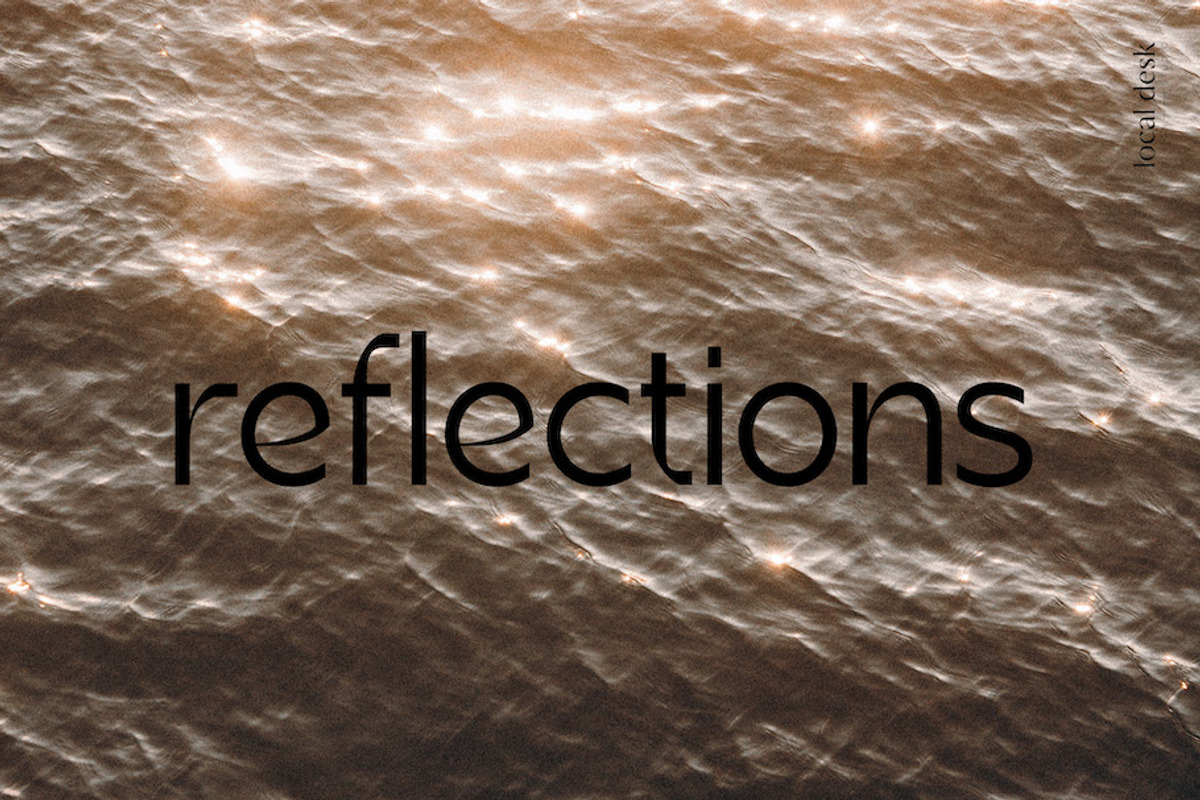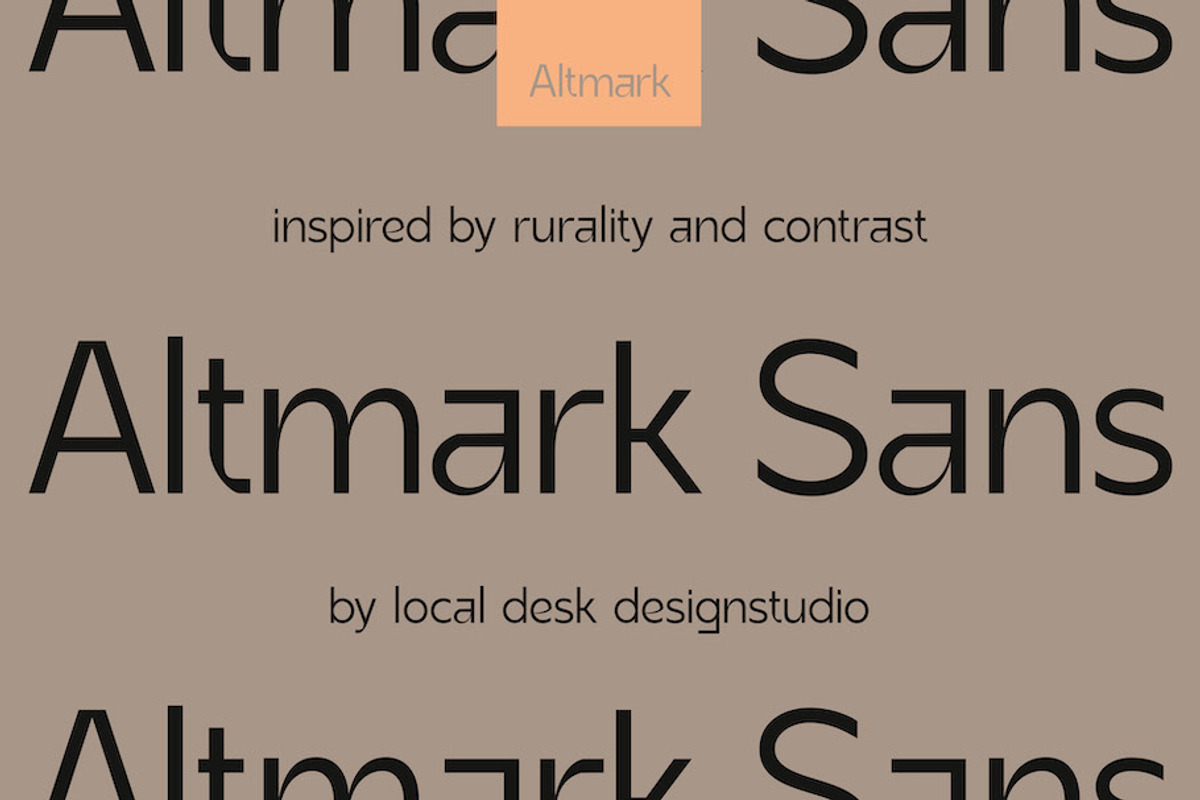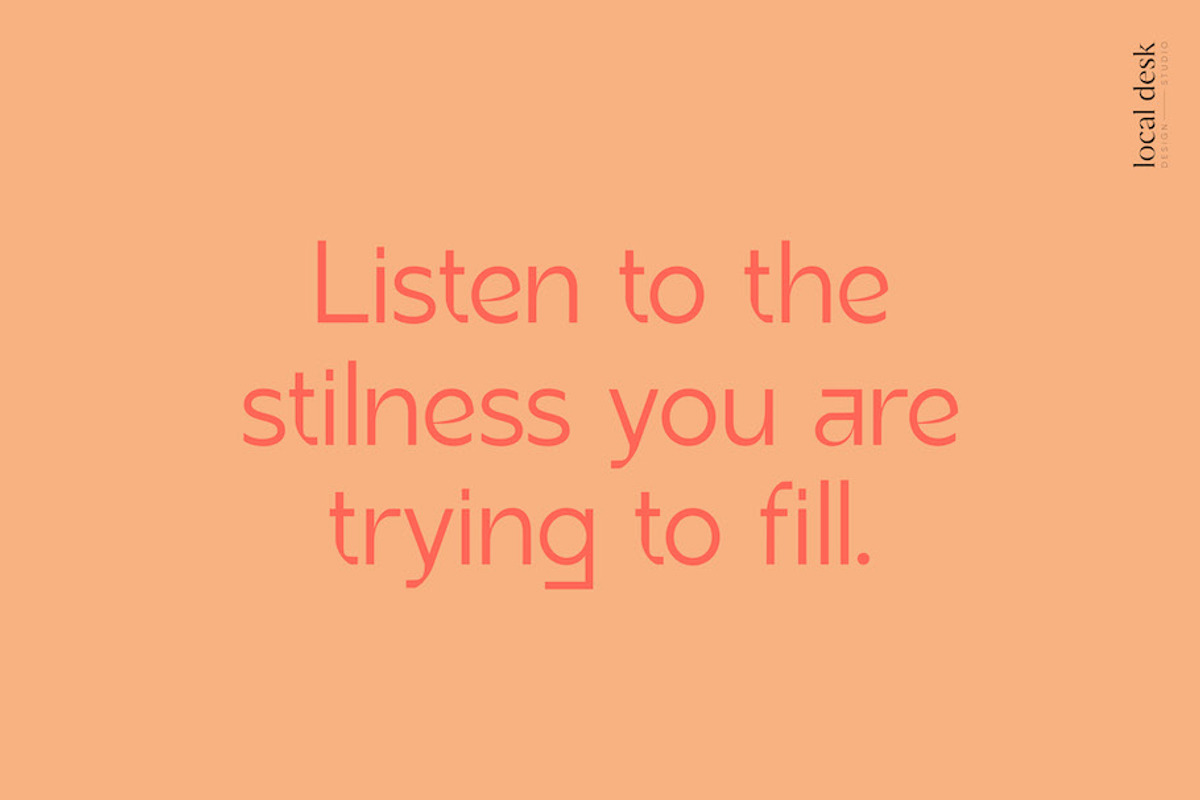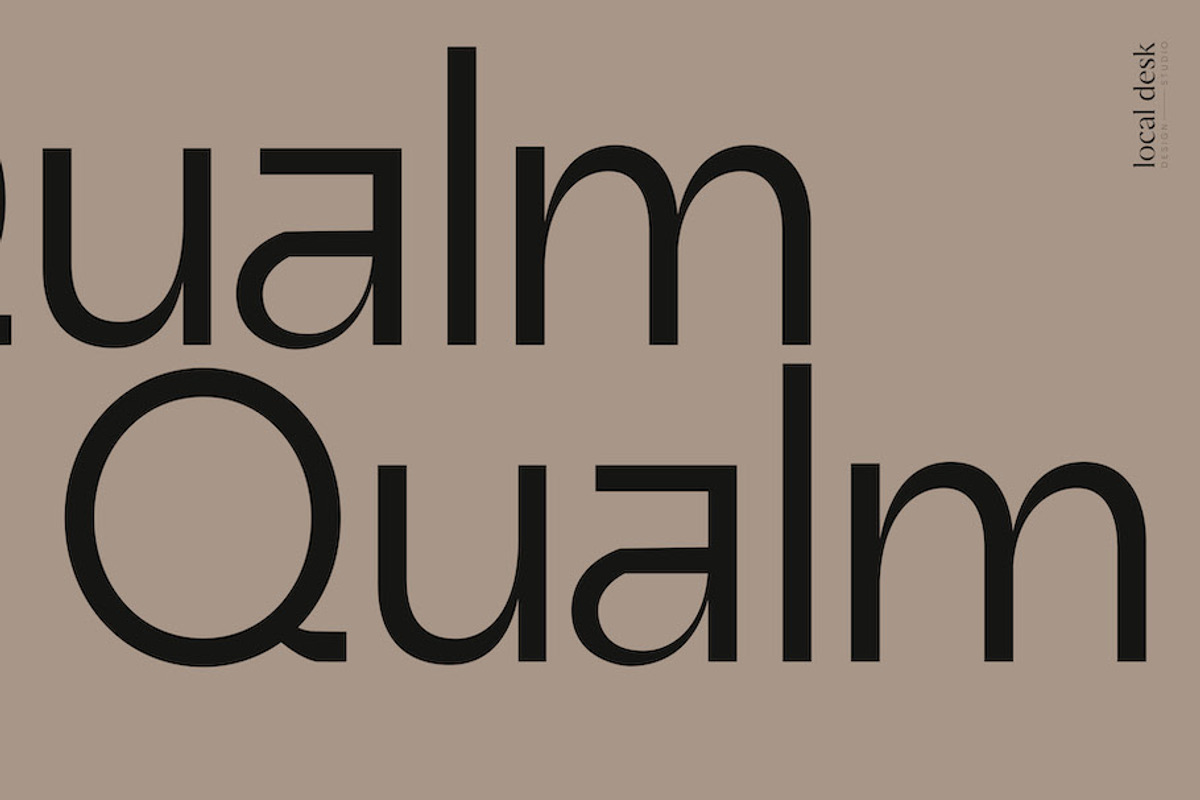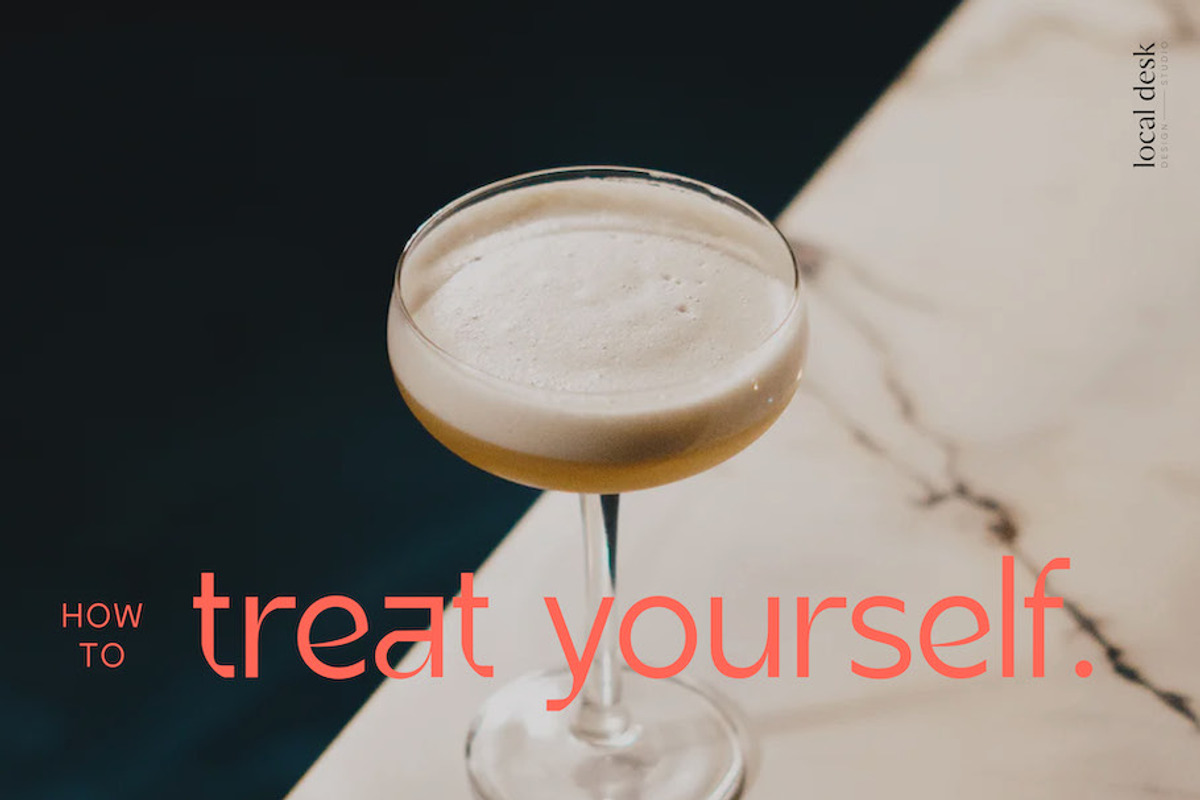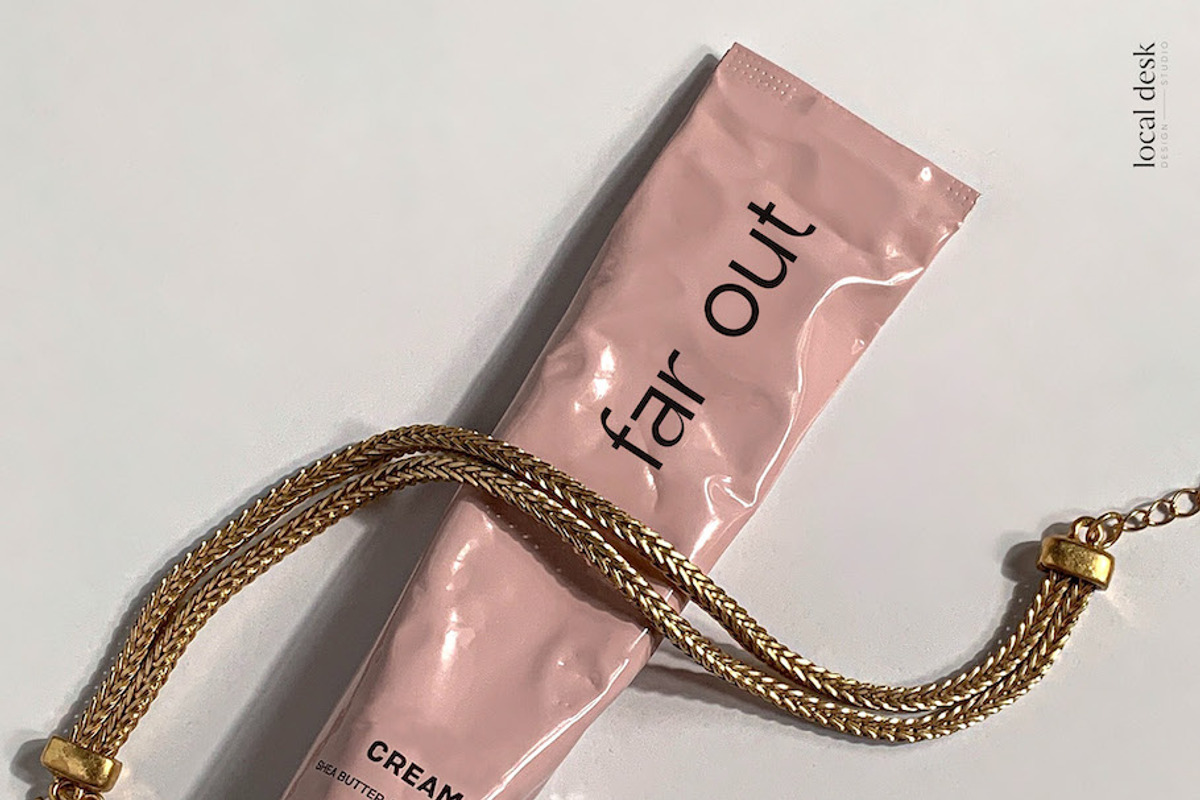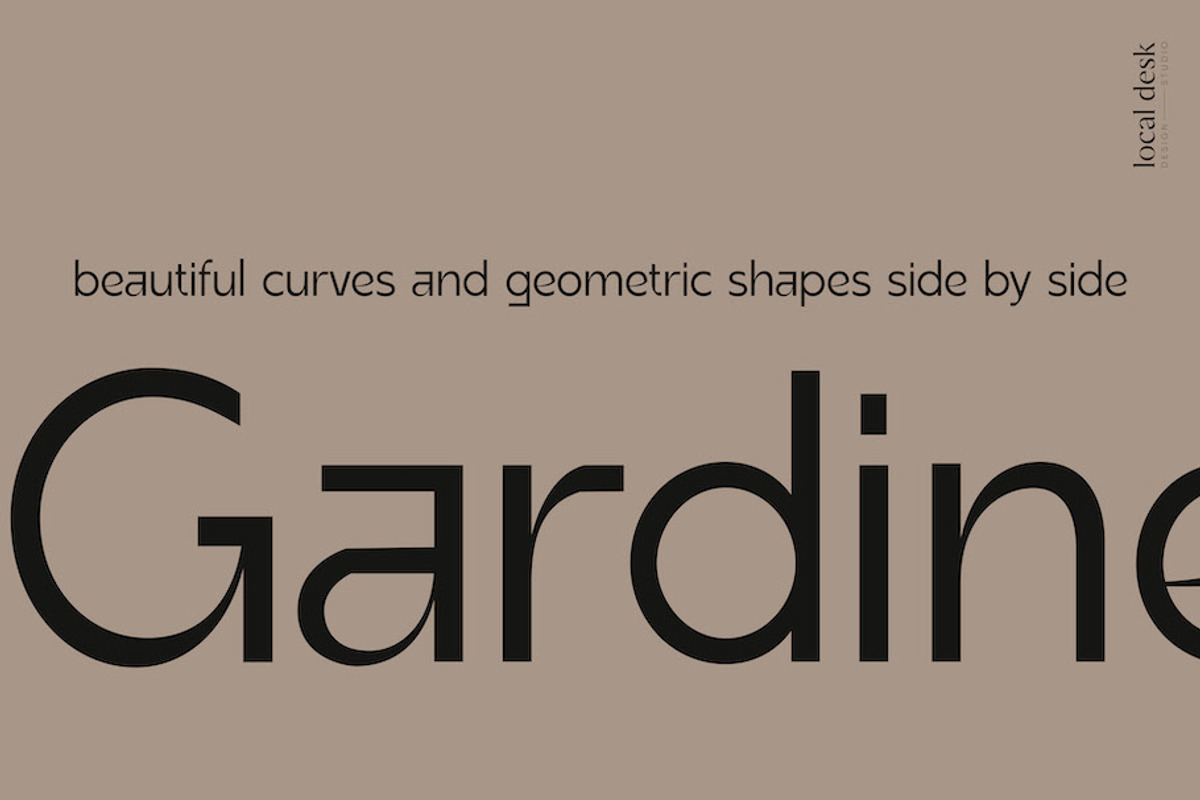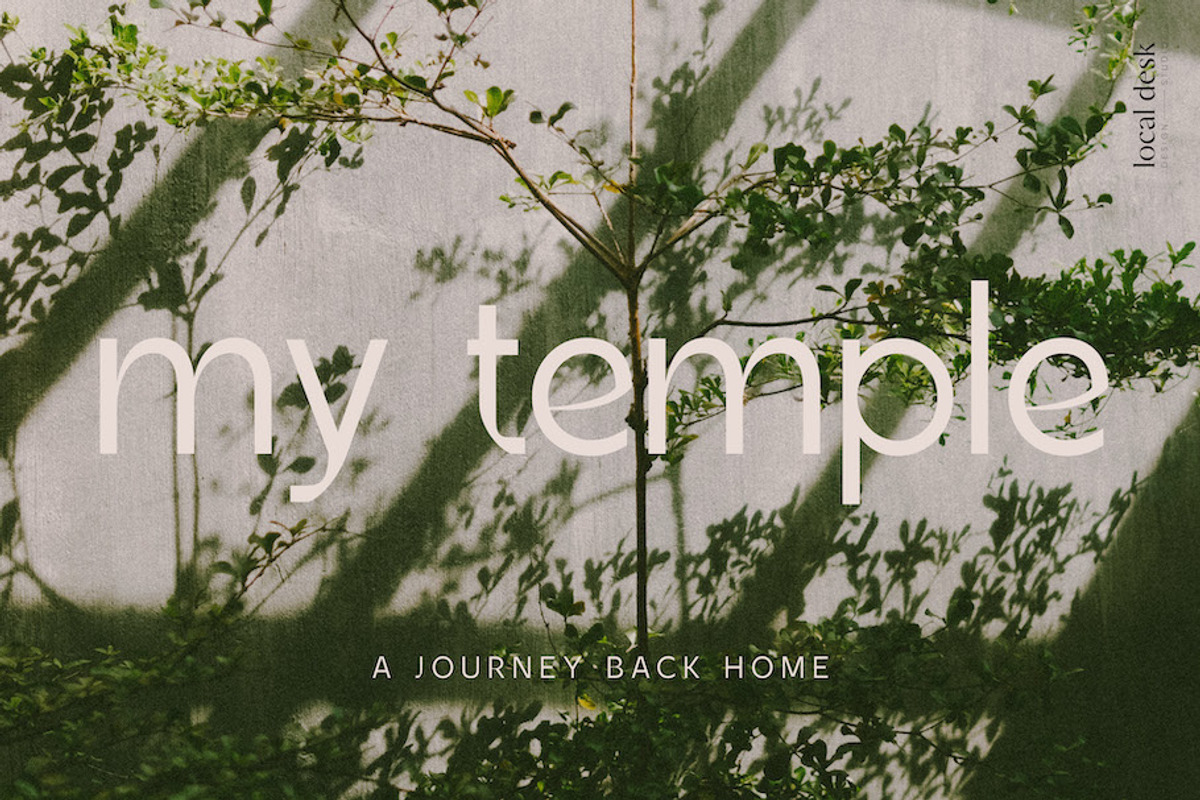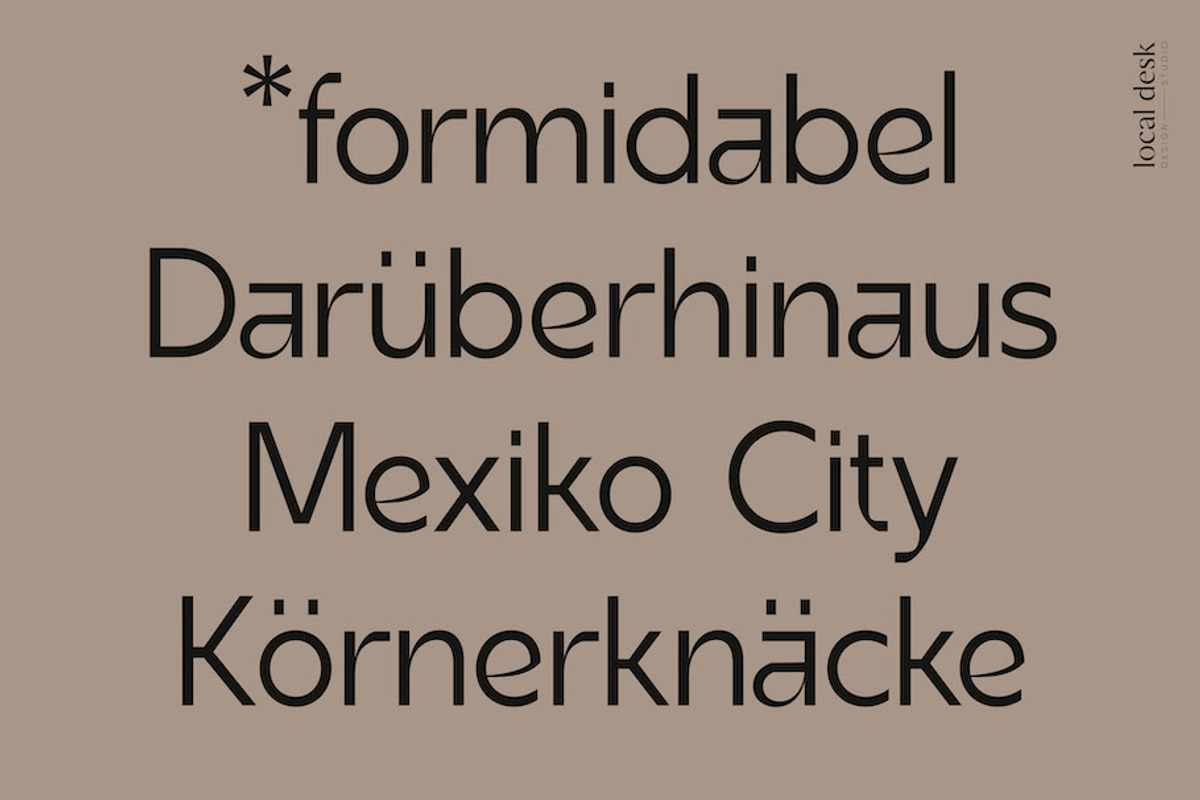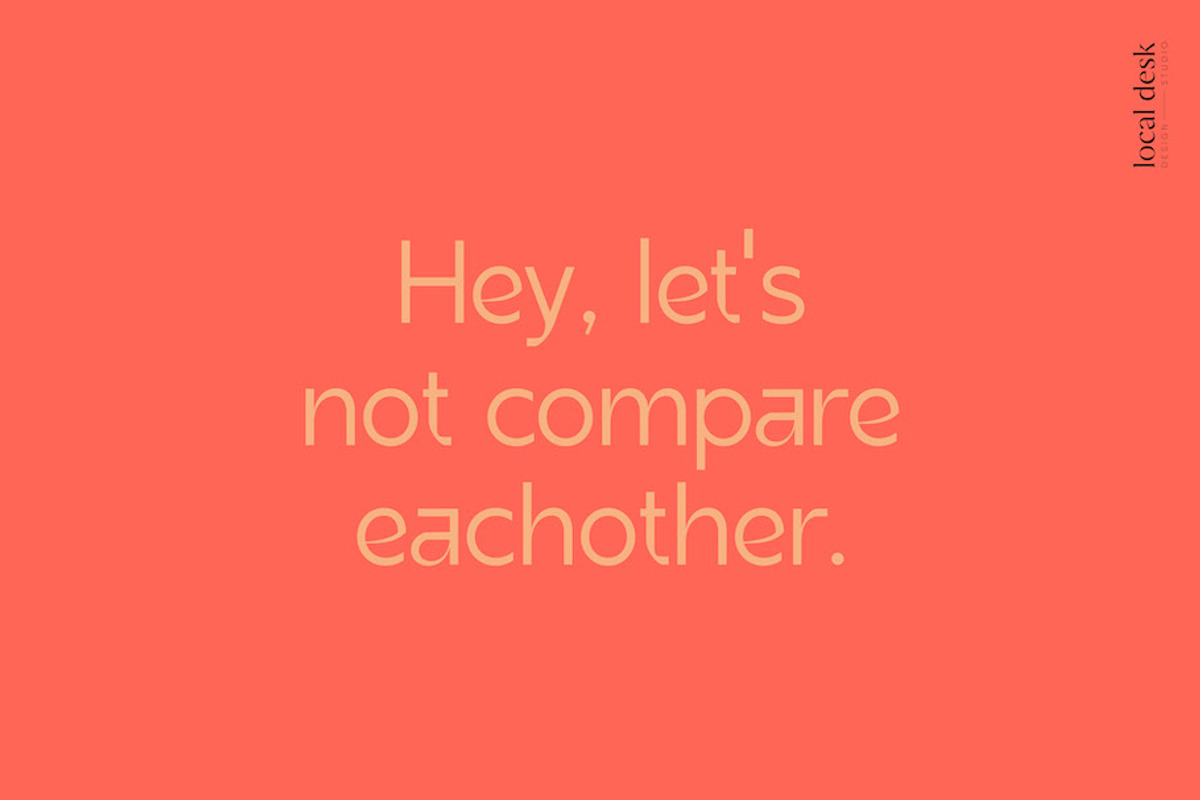
Altmark – a very unique sans
Altmark Sans is a unique and modern sans serif typeface with a clean & edgy vibe. Its refined shapes, curves and contrast add to a very unique vibe and create interest und balance. it is very well suited for stand-out designs that feel elevated and sophisticated while being special and individual.
- Full Upper- and Lowercase Alphabet
- Numbers + Basic Punctuation + Basic Symbols
- Basic Non-English support